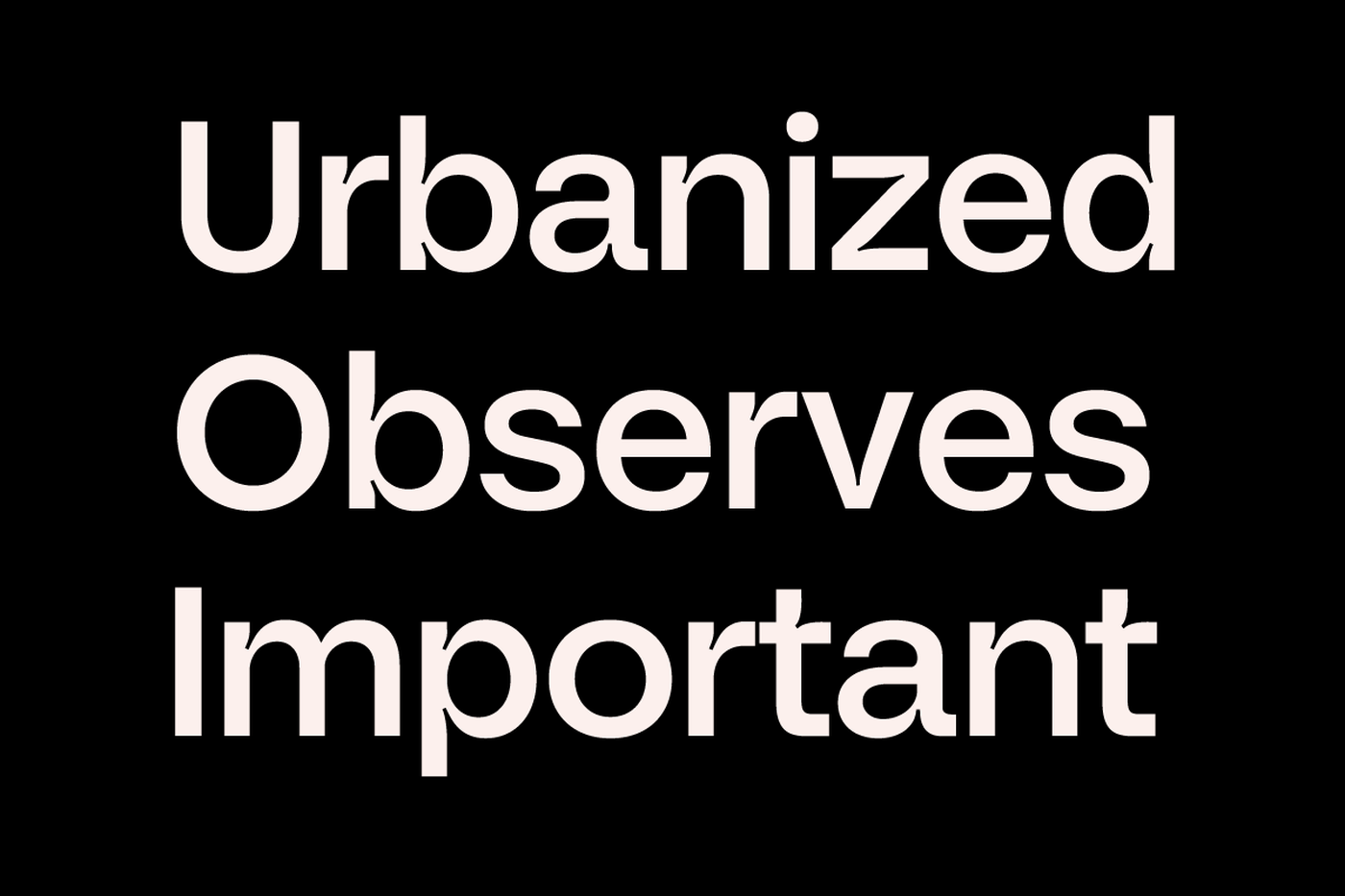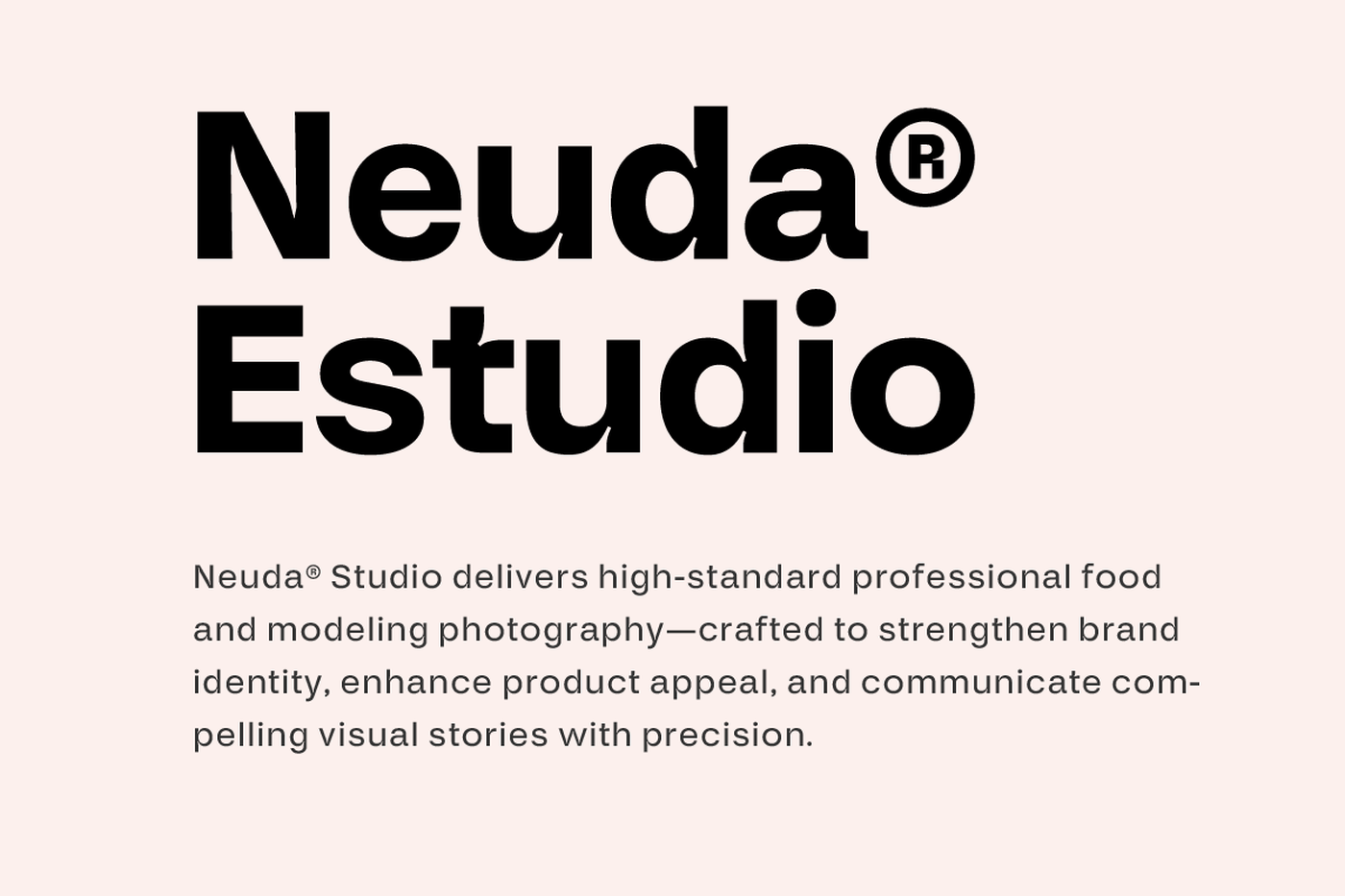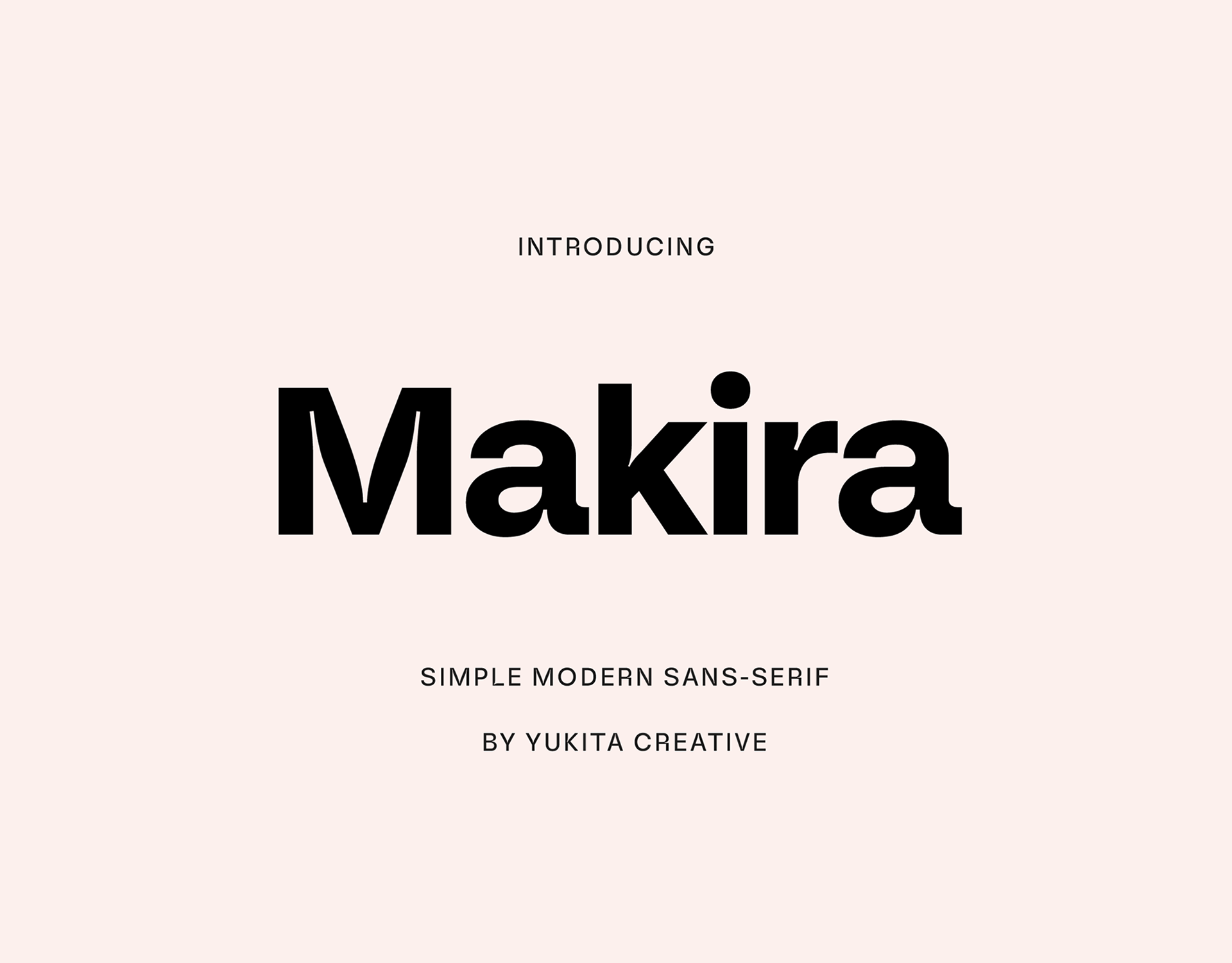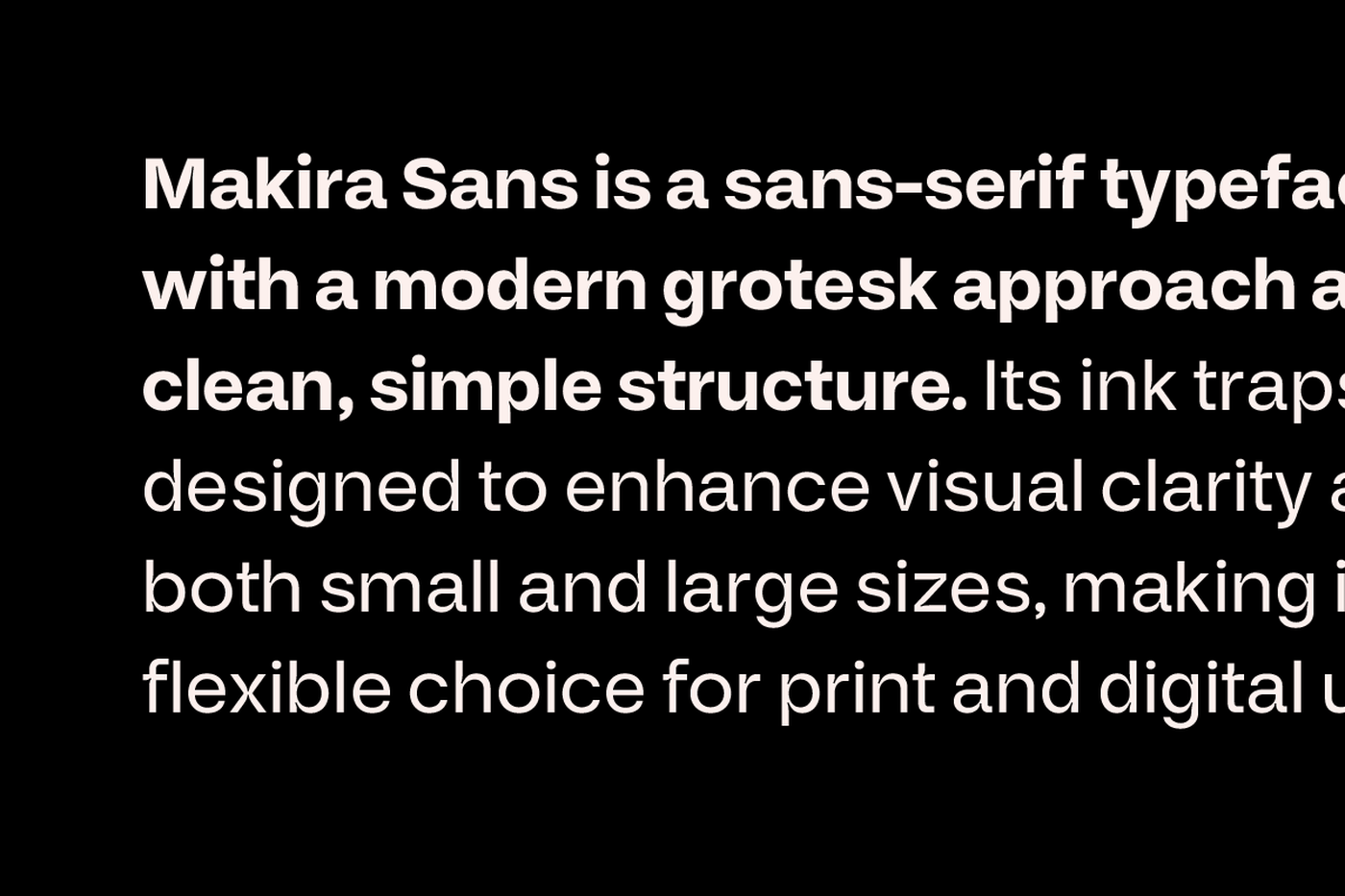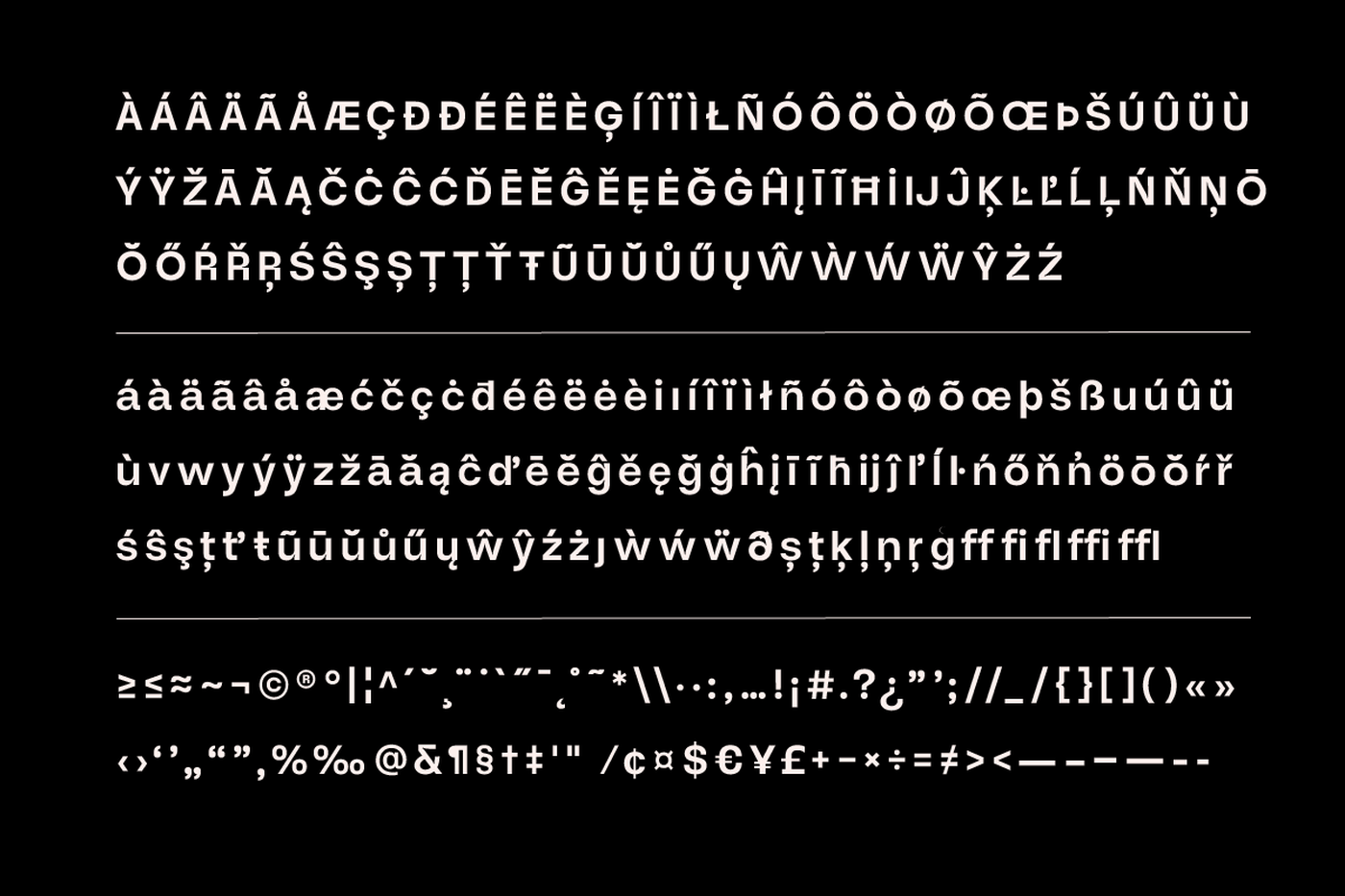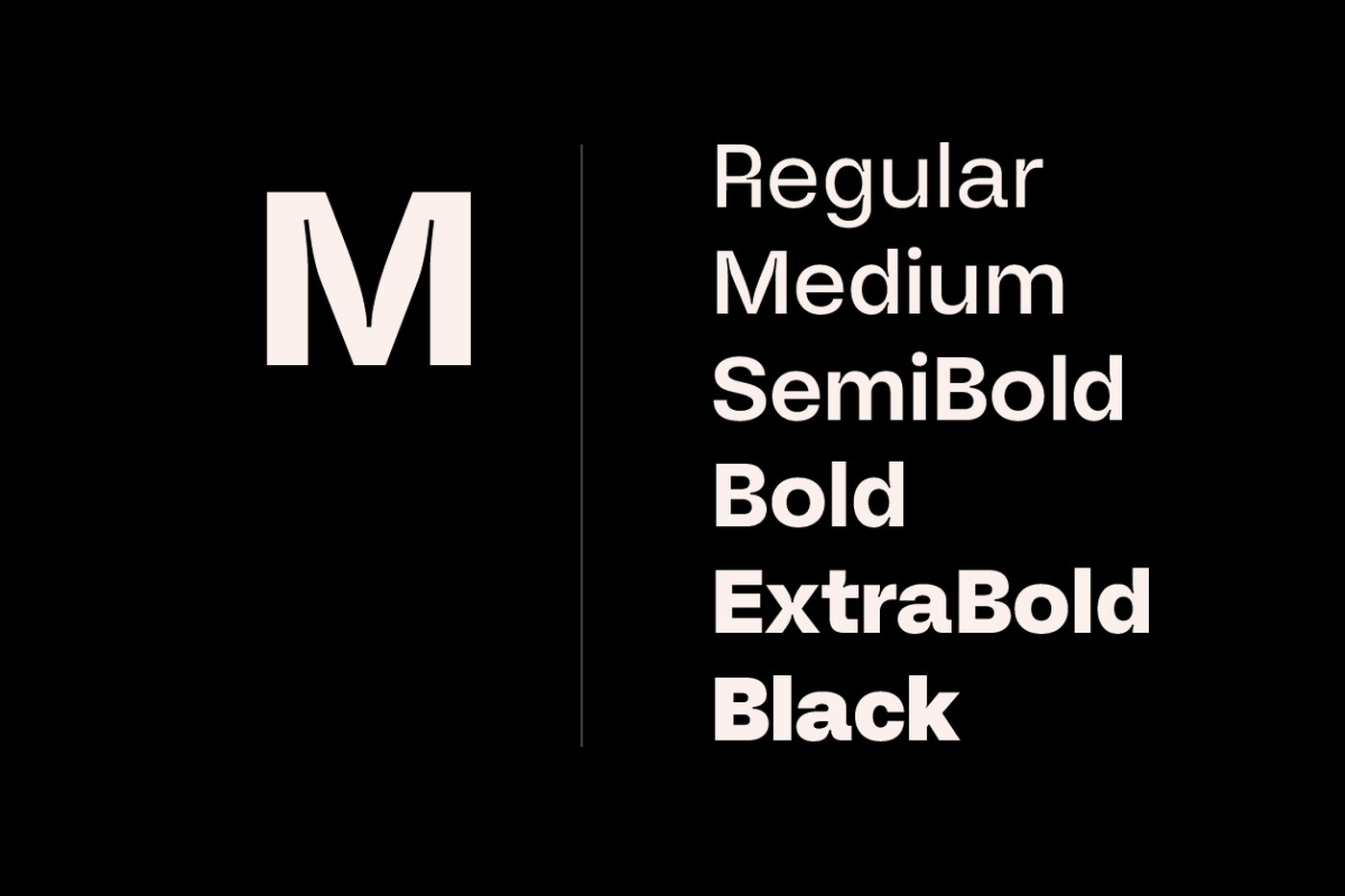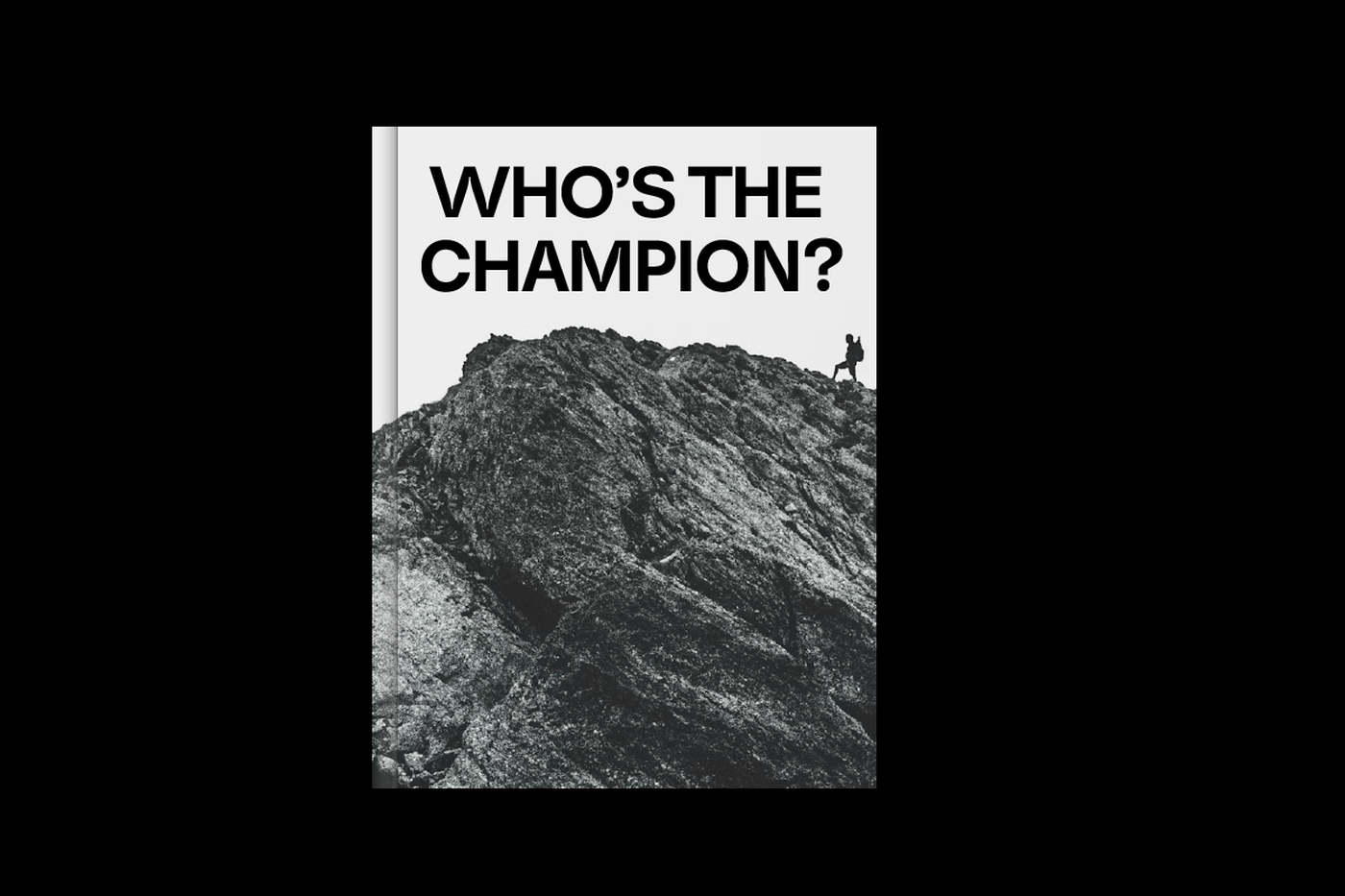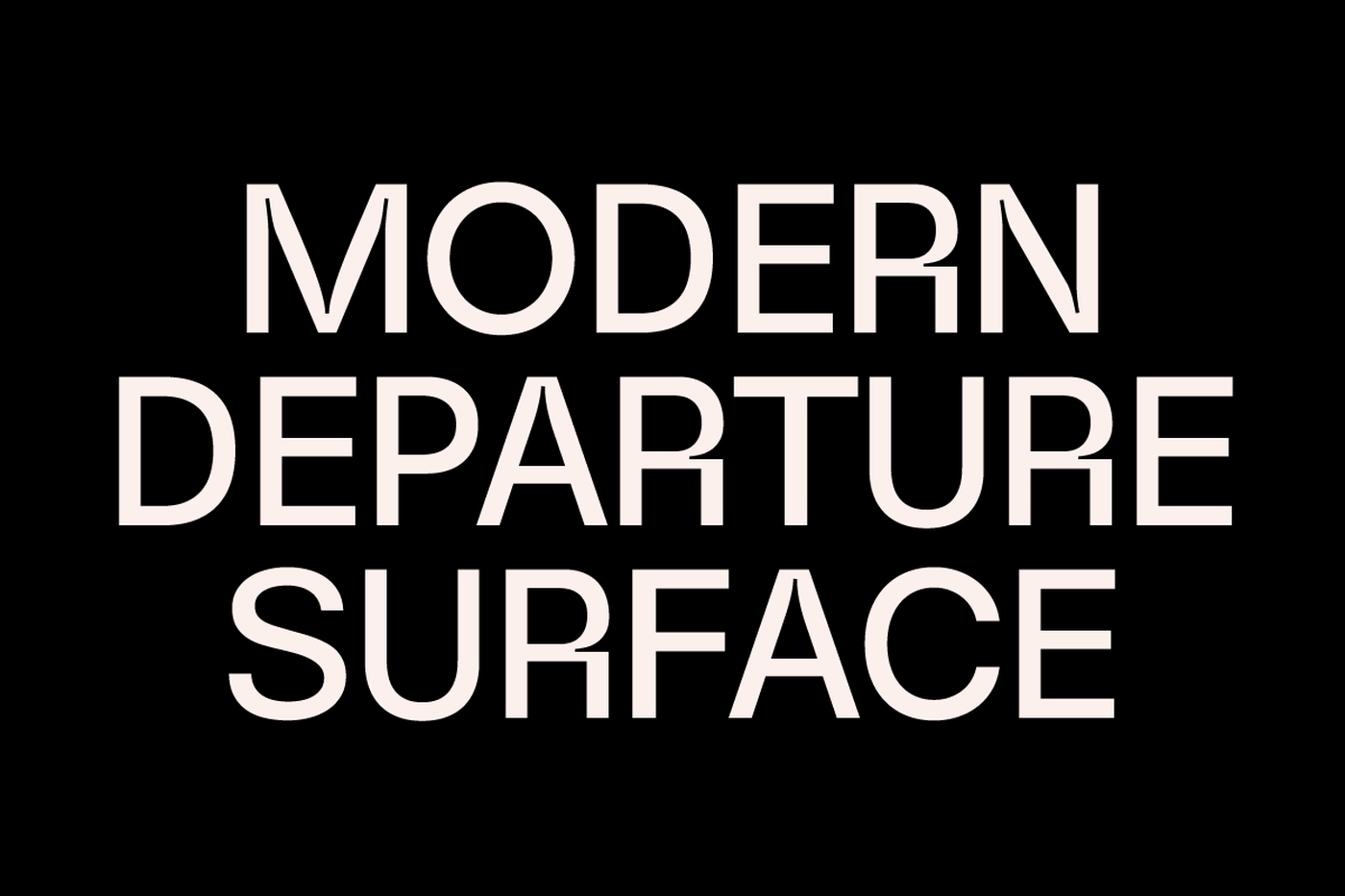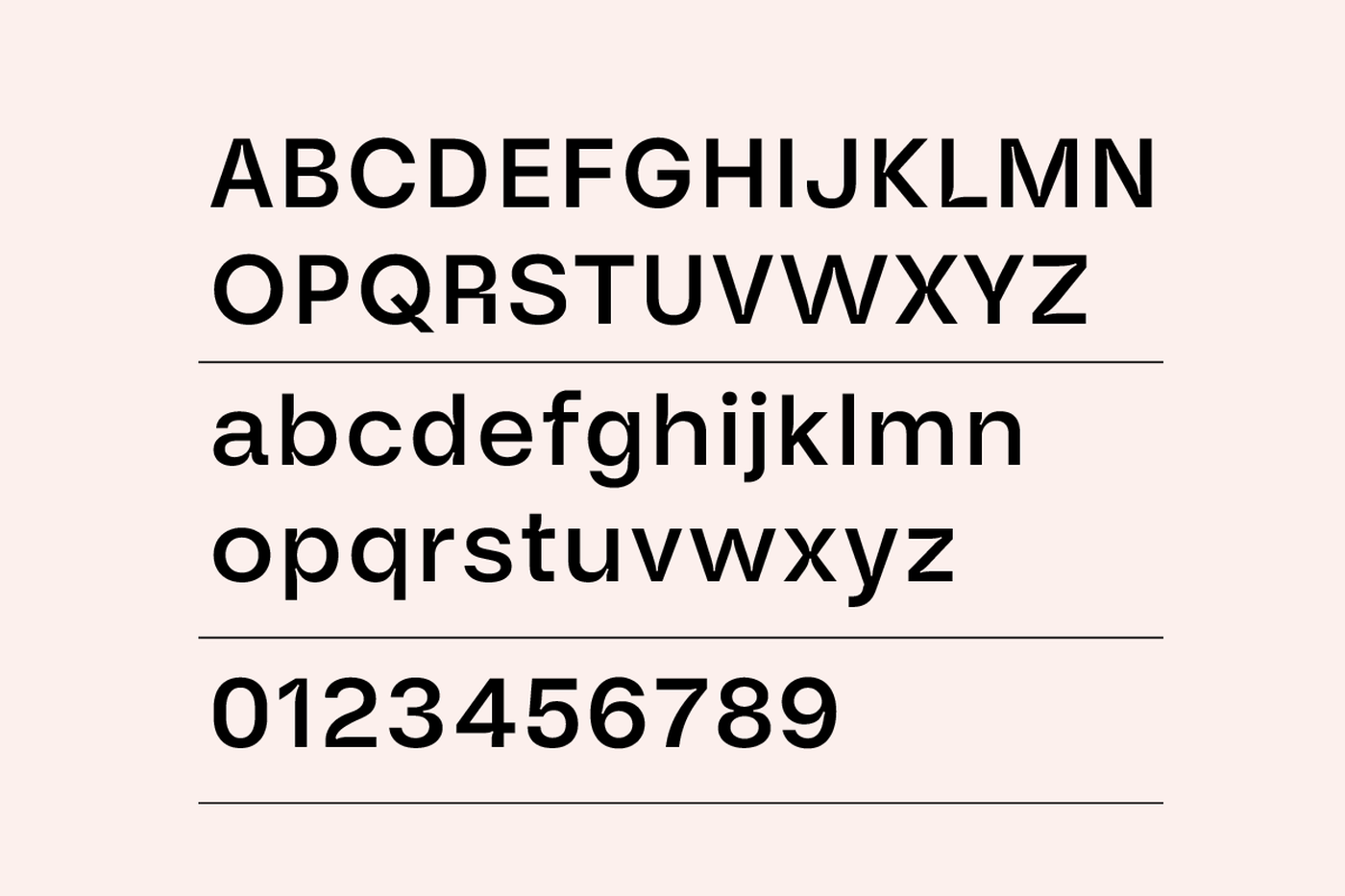
Makira - Sans Serif Font Family
Makira Sans is a modern grotesk sans-serif font designed for professional designers, creative agencies, and web developers. Featuring a clean and simple structure with functional ink traps, this typeface ensures excellent readability and visual clarity across various sizes. Makira Sans is ideal for a wide range of design projects, including branding, logo design, editorial layouts, web design, UI/UX interfaces, advertising, and both print and digital applications. Its modern grotesk character delivers a professional, minimal, and versatile look suitable for contemporary visual identities.